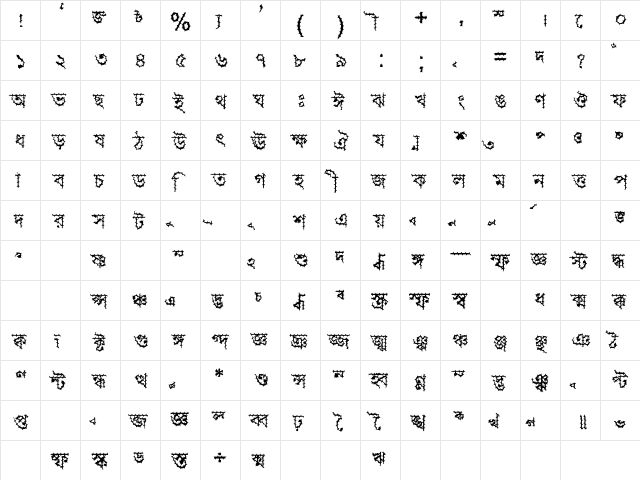
Progoty Cactus Regular
Design Context for Progoty Cactus Typeface
Progoty Cactus is a composed and adaptable typeface that performs quietly and consistently across a wide range of design contexts.